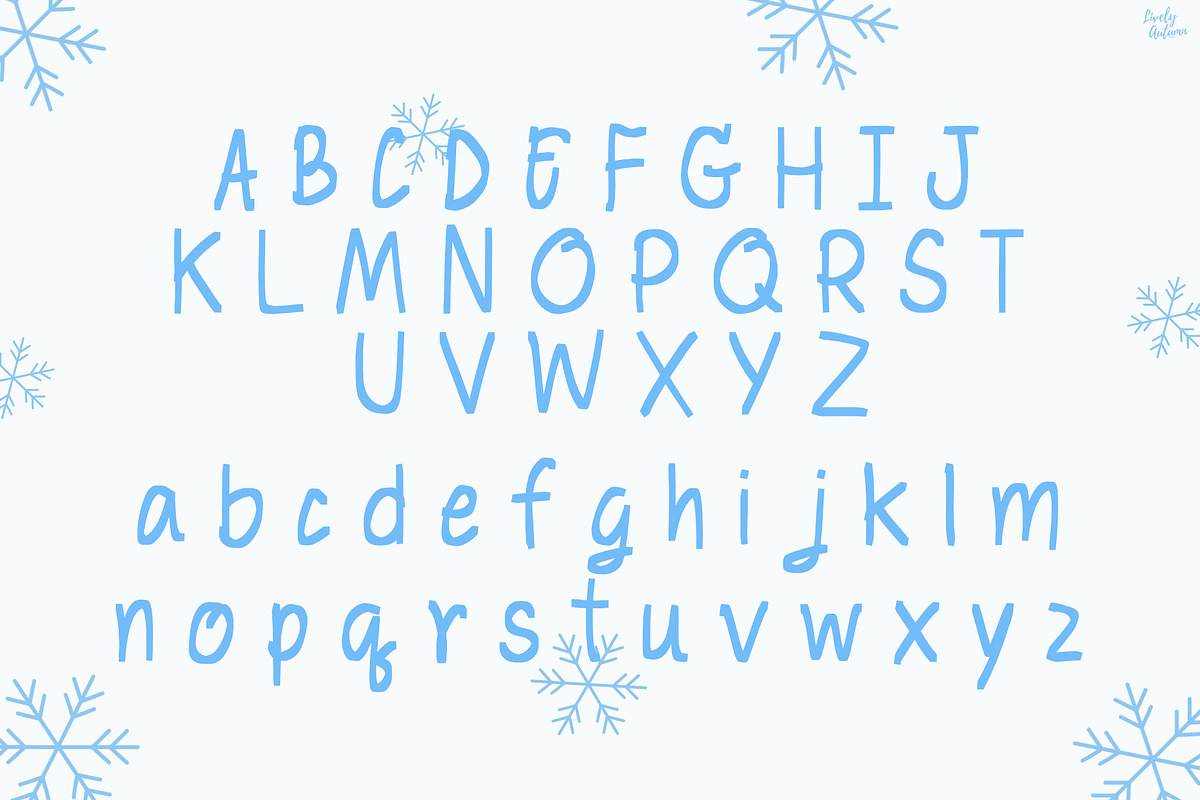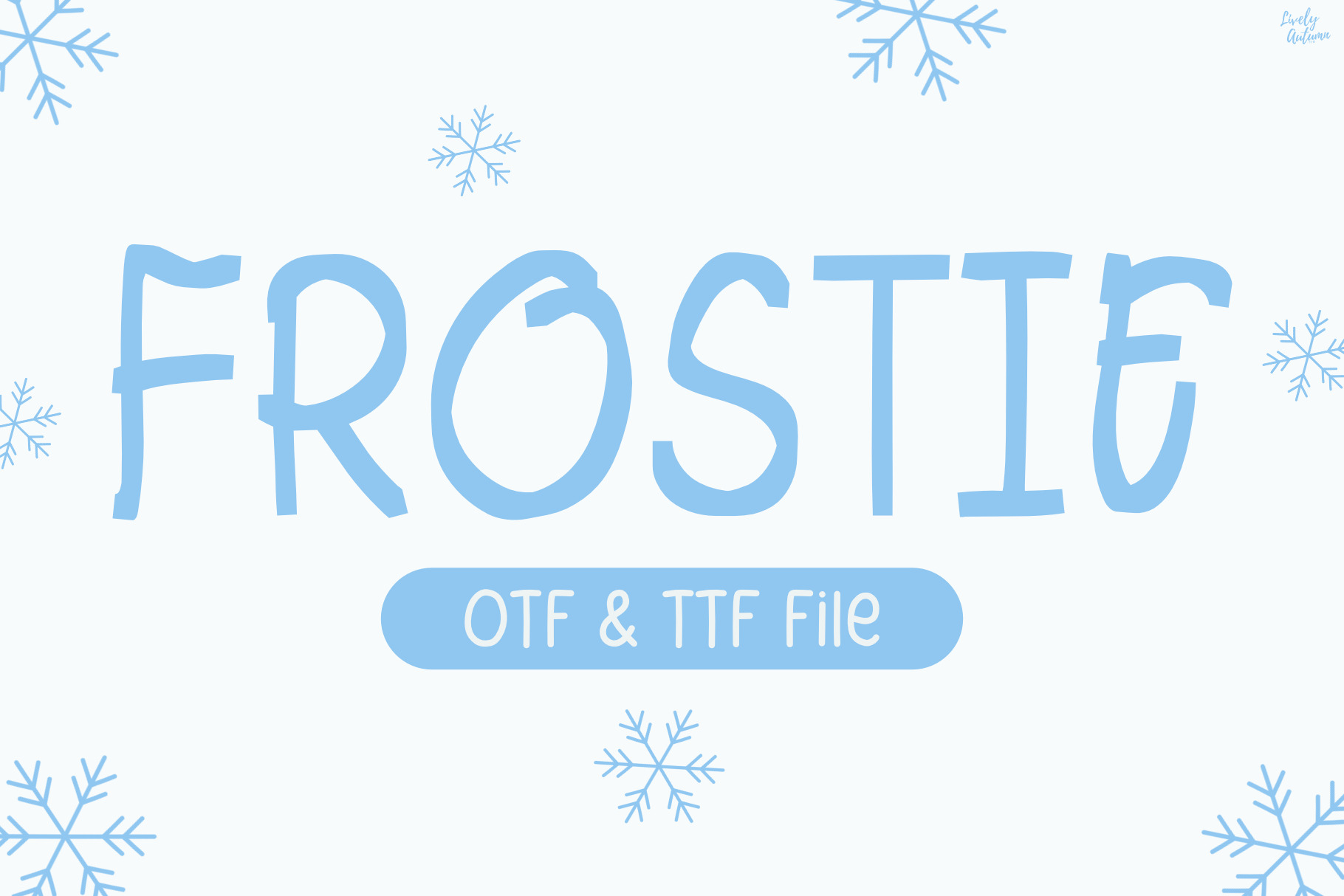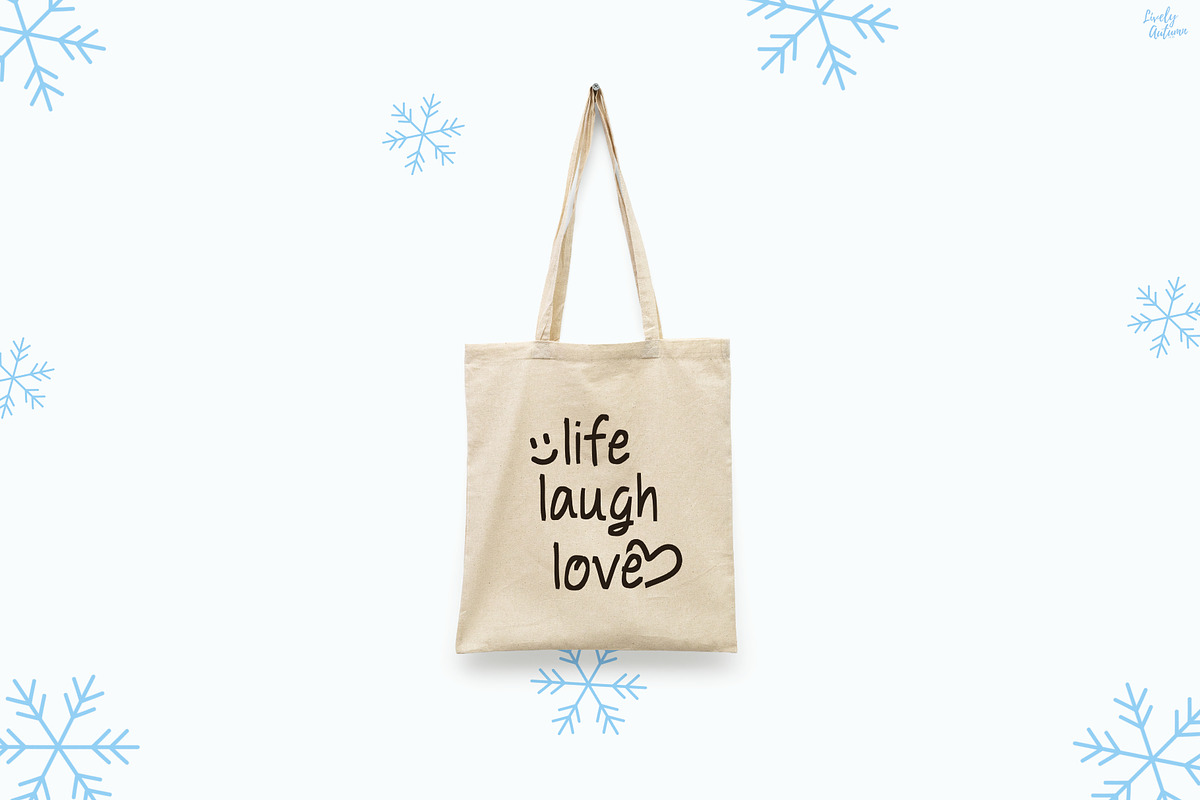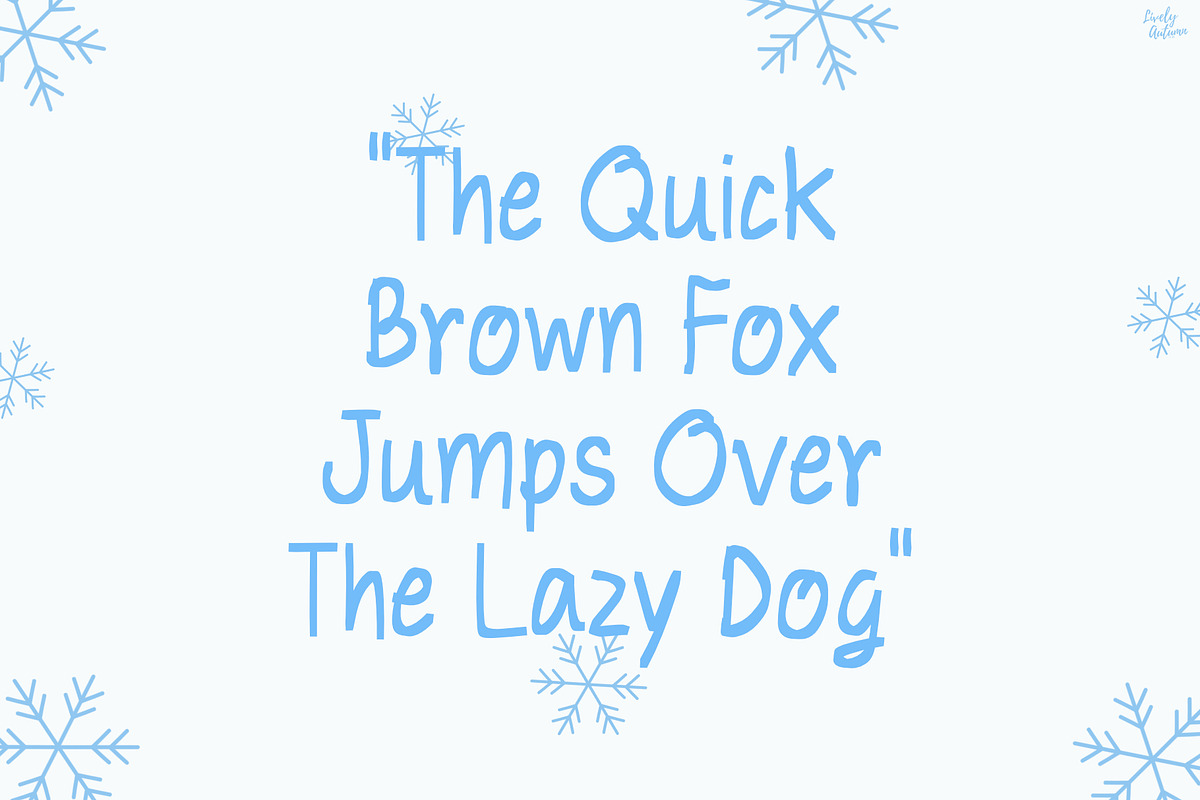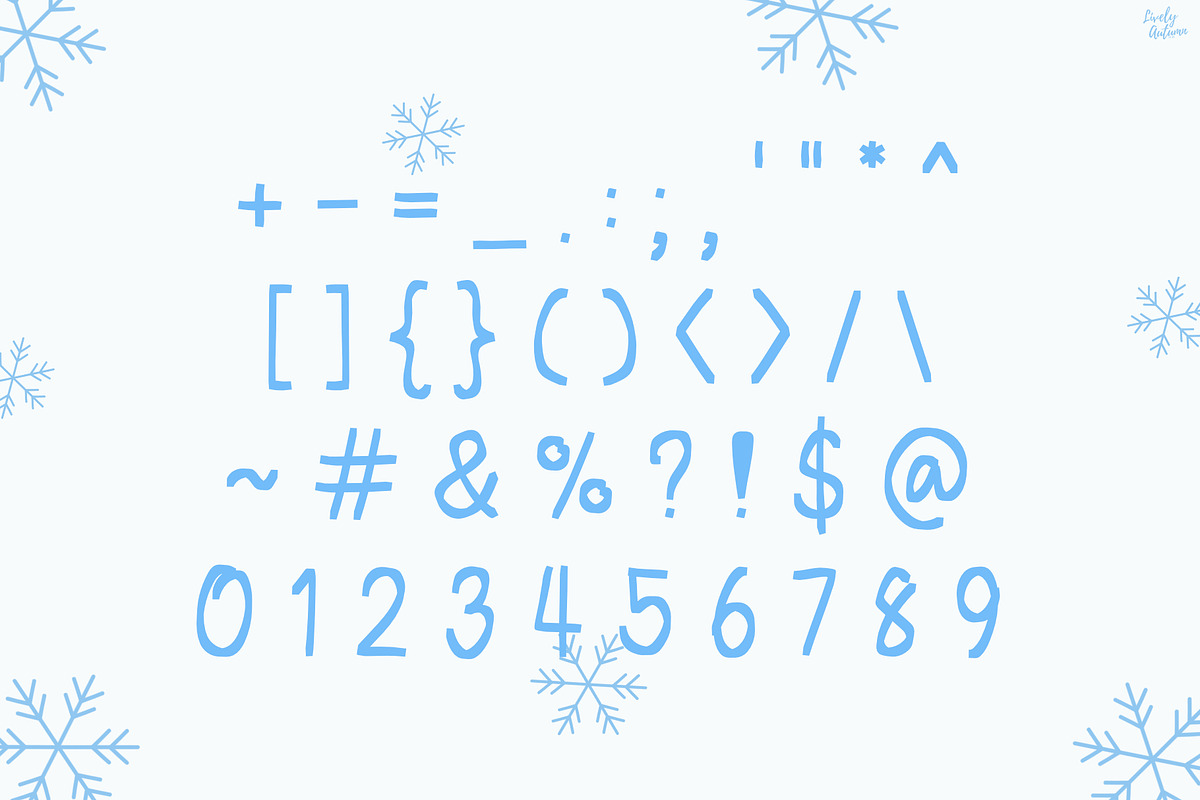
Frostie Ink | Handwritten font
Frostie Ink Font is a handwritten font created using a marker brush. Perfect for your personal projects and various projects. From invitations to posters, social media graphics, journals, stickers and much more.
- Font includes: uppercase, lowercase, numbers, and punctuation